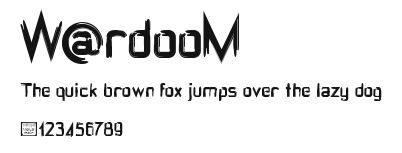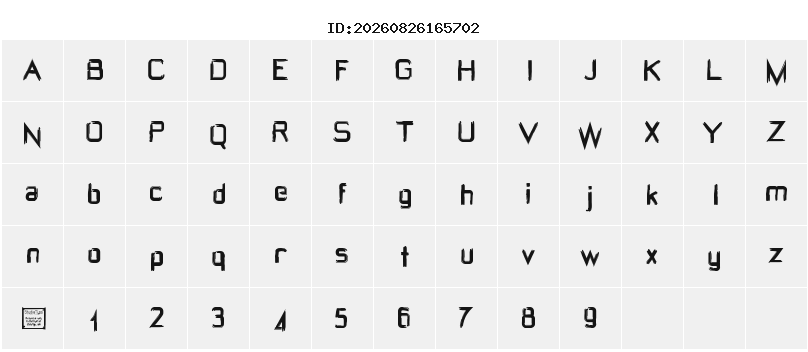
• Font Name: W@rdooM
• Full Font Name: W@rdooM
• Version: Version 1.00 April 9, 2014, initial release
• Designer: Mehmet Abacı
• Manufacturer: StudioTypo
About W@rdooM.otf
W@rdooM.otf is a modern, elegant sans-serif font designed for ultimate readability and visual harmony. Perfect for branding, headlines, web design, and print materials.